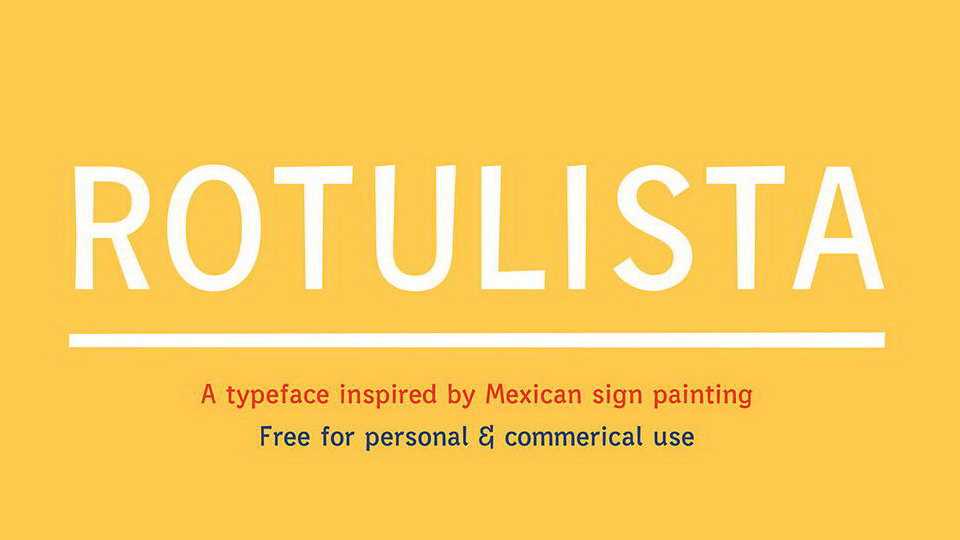
Download Rotulista – a typeface inspired by Mexican sign painting. It is hard working and flexible, while maintaining personality and friendliness. Rotulista font is perfect for headlines, body copy, and protest signs. Its aims to captures what America was built on; hope, not hatred.
Designer: Sam Bumbalo